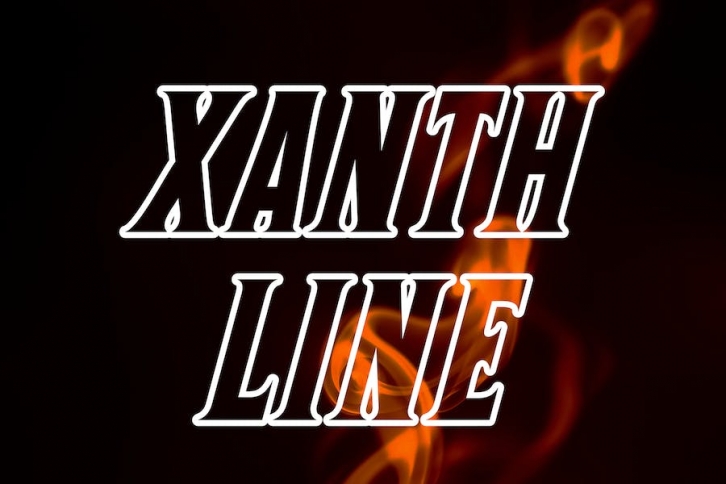
Introducing our new product XANTH LINE FONT - Modern Font
XANTH LINE FONT - Modern Font is a bold and authentic display font. The font is suitable for any branding project like logo, t-shirt printing, esport, and many more. outstanding in a wide range of contexts.